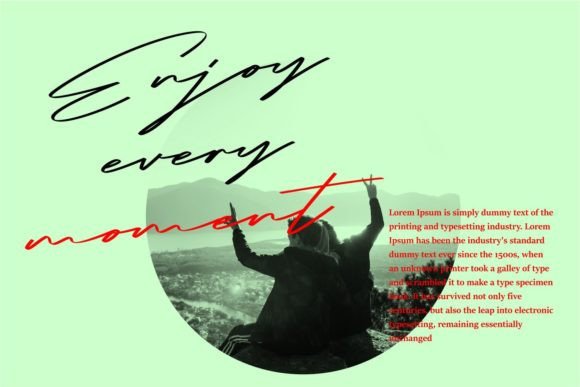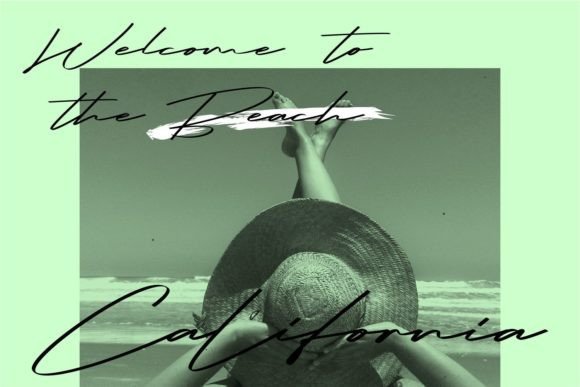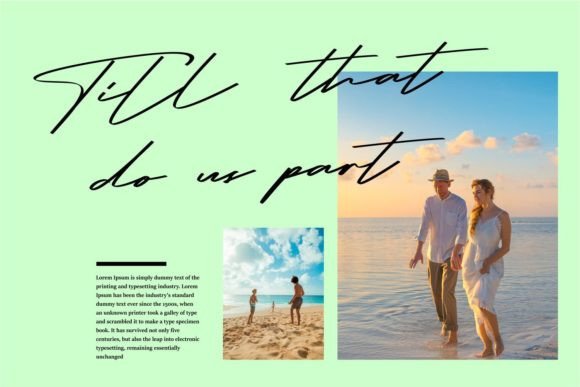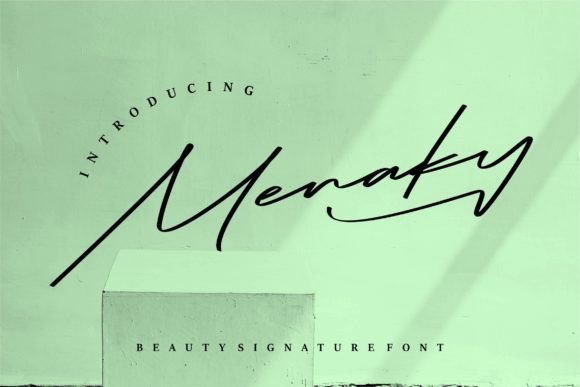
Introduction to Menaky Font
Experience the height of elegance with our stylish and refined script font.
Menaky’s graceful and flowing letterforms exude sophistication and class, while its contemporary design brings it firmly into the modern age Perfect for high-end branding, wedding invitations, and any project that calls for a touch of luxury and refinement.
Key Features of Menaky Font
Why Choose Menaky Font?
Menaky Font offers exceptional quality and versatility, making it a valuable addition to your design toolkit. Whether you’re creating for personal projects or commercial use, Menaky Font delivers professional results.